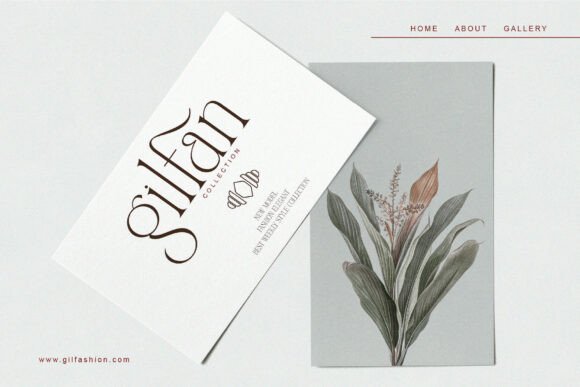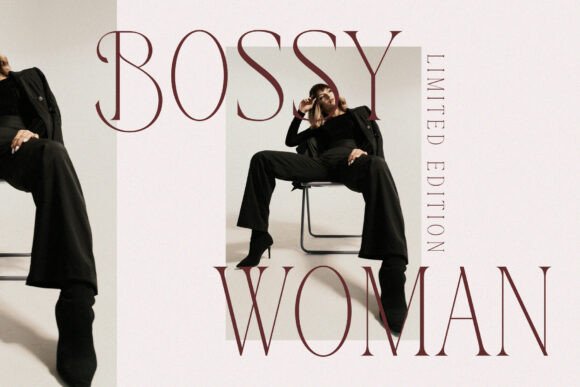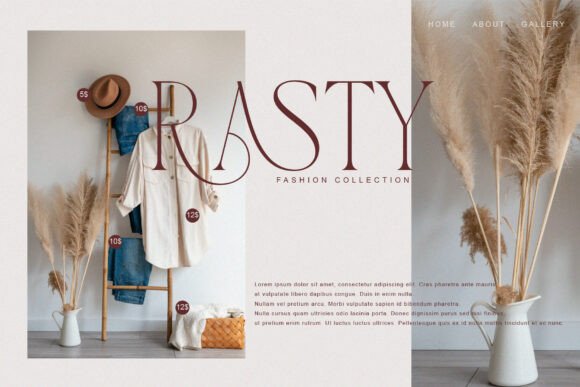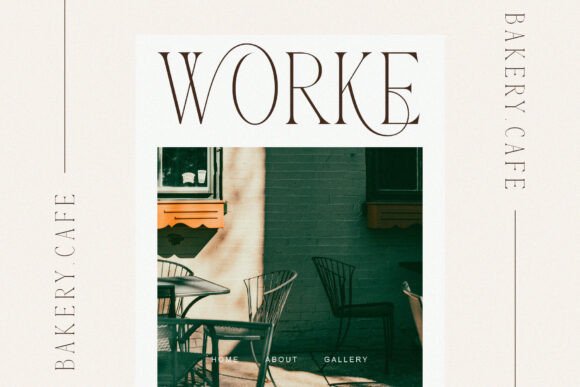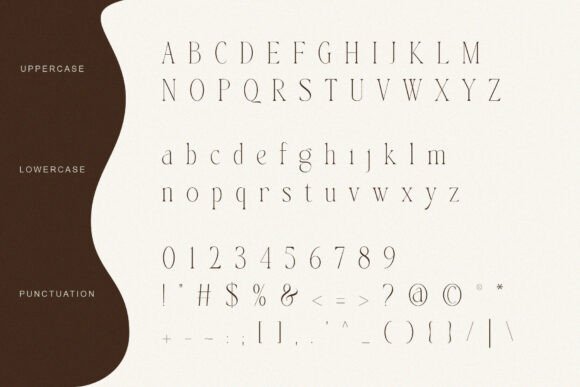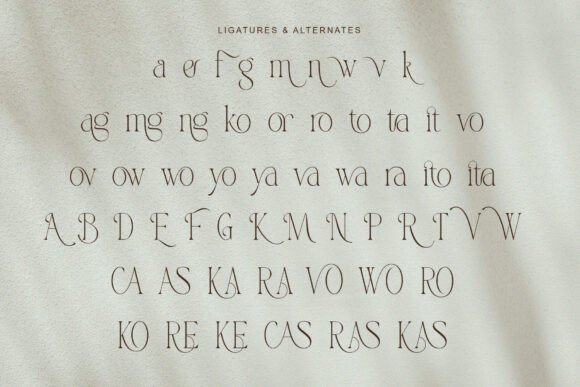
The Enchanting Bingkow Font: A Designer’s Dream for Romantic Projects
I still remember the design project that led me to discover the beautiful Bingkow font. I was working on a wedding stationery set for a client who wanted something elegant, romantic, and utterly unique. As I scrolled through font after font, nothing seemed quite right – until I stumbled upon Bingkow. Its sweeping hairlines and intricate flourishes instantly captured my heart, and I knew I had found the perfect fit.
An Honest Review of Bingkow Font
What I Love About Bingkow ✨
- ✨ Elegant, display serif that exudes romance and sophistication
- ✅ Thin, sweeping hairlines that add a touch of whimsy and lightness
- ✅ Intricate flourishes that elevate the font to a high-end, artisanal feel
- ✅ Perfect for wedding stationery, romantic book covers, and delicate product labels
While Bingkow is an exceptional font, it’s not without its quirks. For instance:
- ⚠️ It may not be the best choice for body text or long-form reading due to its delicate nature
- ⚠️ Some of the intricate flourishes might not display correctly at smaller font sizes
- ⚠️ As with any script font, letter spacing and kerning may require manual adjustment for optimal results
The Story Behind Bingkow Font
While the exact origins of Bingkow are unclear, it’s easy to imagine a designer inspired by the delicate, organic shapes of nature – perhaps a stroll through a botanical garden or a fascination with antique, handwritten manuscripts. The result is a font that feels both timeless and fresh, perfect for projects that demand a touch of romance and whimsy.
Q: What makes Bingkow font so special?
A: Bingkow’s unique blend of thin, sweeping hairlines and intricate flourishes sets it apart from other fonts. Its romantic, elegant feel makes it perfect for wedding stationery, book covers, and artisanal product labels.
Q: Can I use Bingkow for body text?
A: While Bingkow is stunning as a display font, it may not be the best choice for body text due to its delicate nature. For longer blocks of text, a clearer, more legible font might be more suitable.
Q: Is Bingkow suitable for digital use?
A: Absolutely! Bingkow’s elegant, refined design makes it perfect for digital applications like social media graphics, website headers, and more. Just be sure to test it at various sizes to ensure it remains legible.